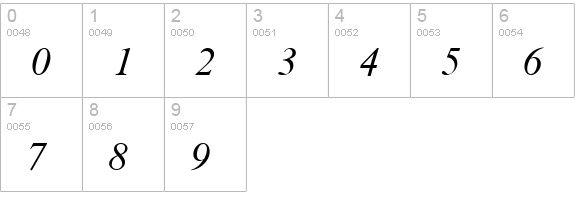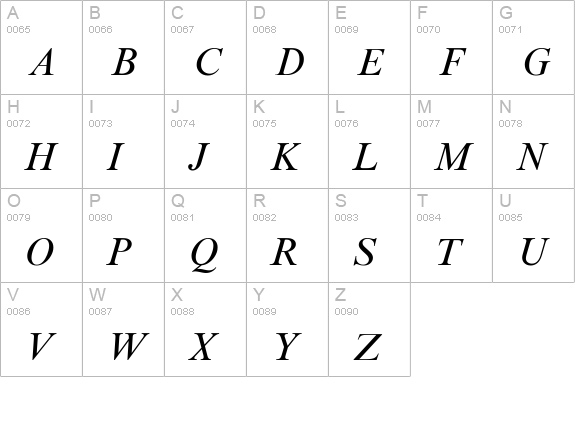
NimbusRomNo9T Italic Font Details
NimbusRomNo9T Italic is a distinctive, italic variant in the NimbusRomNo9T typeface family \xE2\x80\x94 well suited to design and typography projects.
NimbusRomNo9T Italic font exudes elegance and sophistication with its sleek and modern design. The italicized characters add a touch of flair and style to any project, making it perfect for headings, titles, and branding materials. The delicate curves and sharp angles of this font create a sense of movement and fluidity, making it a versatile choice for both print and digital designs. What sets NimbusRomNo9T Italic font apart is not only its aesthetic appeal but also its accessibility. This premium font is available for free download at FontsMarket.com, allowing designers and creatives to access high-quality typography without breaking the bank. Whether you're working on a personal project or a client's design, NimbusRomNo9T Italic font is a valuable addition to your font library. Elevate your designs with this stylish and versatile typeface today, and make a lasting impression with every word you write.